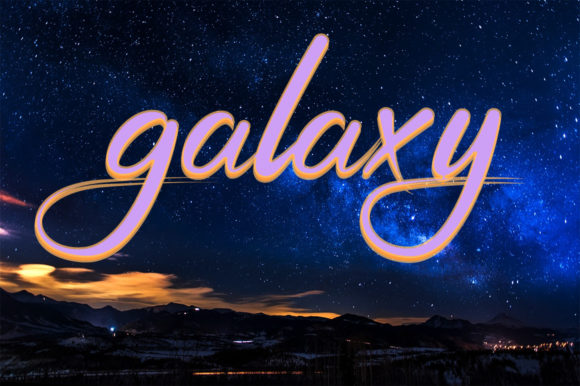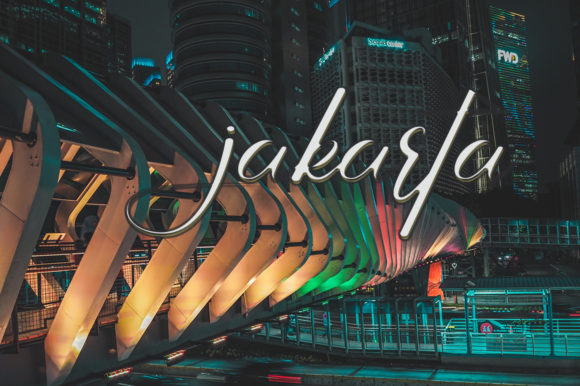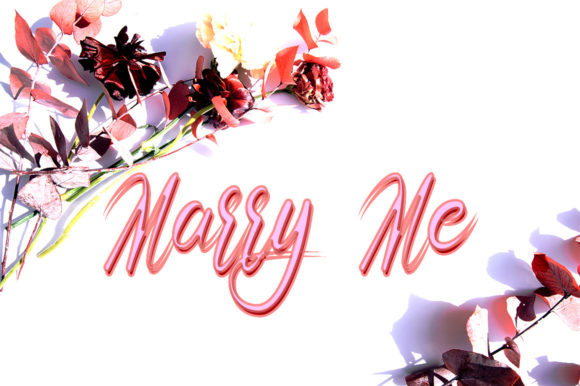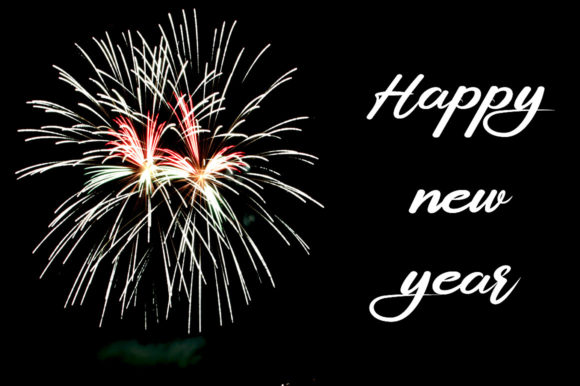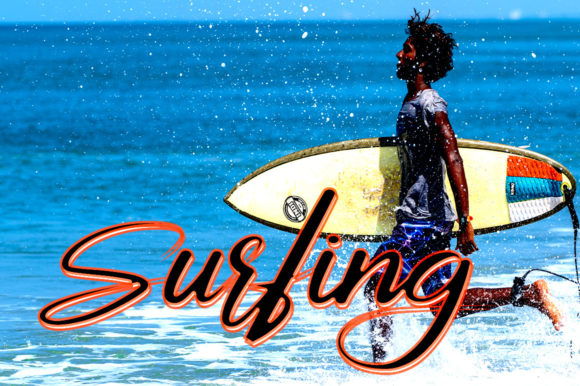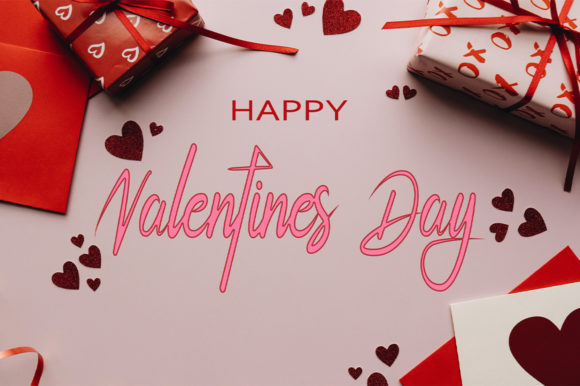
Introducing Galaxy Font: Elevate Your Designs with Elegance and Sophistication
In the world of typography, a font can make or break a design. For designers and crafters looking to add a touch of elegance and sophistication to their projects, the Galaxy Font is an excellent choice. This stylish script font boasts a beautiful flow, making it perfect for a wide range of applications, from packaging products to invitation cards, posters, product logos, greeting cards, business cards, and more.
What Makes Galaxy Font Stand Out?
Galaxy Font is not just another script font; it’s a carefully crafted typeface designed to bring a sense of luxury and refinement to your designs. Its unique flow and stylish curves make it an ideal choice for projects that demand a high level of sophistication. Whether you’re working on a branding project, creating custom stationery, or designing eye-catching posters, Galaxy Font is sure to impress.
Key Features of Galaxy Font
- Stylish Script Font: Galaxy Font features a beautiful, flowing script that adds a touch of elegance to any design.
- Versatile: Suitable for a wide range of applications, including packaging, invitations, posters, logos, greeting cards, business cards, and more.
- Easy to Read: Despite its stylish nature, Galaxy Font remains highly legible, making it perfect for both headings and body text.
- Customizable: With its extensive range of characters and alternate glyphs, Galaxy Font offers plenty of opportunities for customization.
Use Cases for Galaxy Font
Galaxy Font’s versatility makes it suitable for a variety of design projects. Here are some use cases where Galaxy Font truly shines:
- Packaging Design: Add a touch of luxury to your product packaging with Galaxy Font. Its elegant flow makes it perfect for branding and labeling.
- Invitation Cards: Create stunning invitation cards for weddings, parties, and corporate events with Galaxy Font. Its sophisticated look is sure to impress your guests.
- Poster Design: Use Galaxy Font to create eye-catching posters for movies, events, or promotions. Its stylish curves and flowing lines make it a great choice for headlines and titles.
- Logo Design: Create a memorable brand logo with Galaxy Font. Its unique flow and elegant style make it perfect for businesses looking to establish a sophisticated brand identity.
- Greeting Cards and Business Cards: Add a personal touch to your greeting cards and business cards with Galaxy Font. Its stylish script font is sure to make your cards stand out.
Tips for Using Galaxy Font Effectively
To get the most out of Galaxy Font, here are some tips for using it effectively in your designs:
- Pair with Complementary Fonts: Pair Galaxy Font with complementary fonts to create a harmonious and balanced design.
- Experiment with Colors: Don’t be afraid to experiment with different colors to find the perfect match for your design.
- Use Alternate Glyphs: Take advantage of Galaxy Font’s extensive range of alternate glyphs to add some personality to your text.
- Keep it Simple: Don’t overcomplicate your design. Keep it simple and let Galaxy Font’s elegance shine through.
Galaxy Font is a stylish script font that offers a unique blend of elegance and sophistication. Its beautiful flow and versatile nature make it perfect for a wide range of design projects, from packaging and invitations to posters and logos. With its extensive range of characters and alternate glyphs, Galaxy Font is sure to become a staple in your font collection. So why wait? Download Galaxy Font today and elevate your designs to new heights!